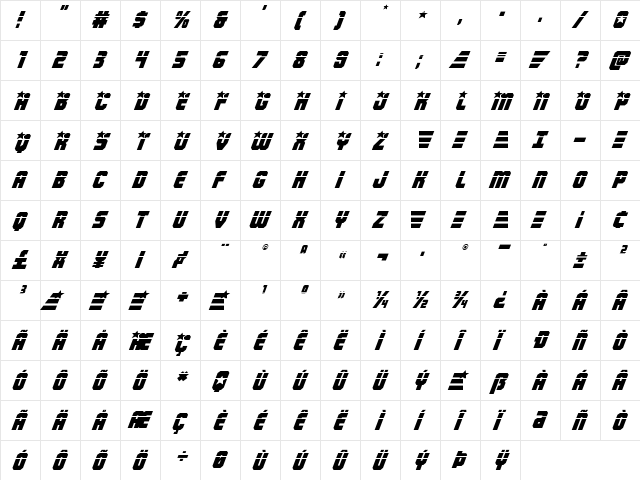
Army Rangers Laser Italic Italic
Design Context for Army Rangers Laser Italic Typeface
Army Rangers Laser Italic draws on military and industrial lettering traditions, with forms that communicate strength and precision. The dynamic lean of this cut emphasises speed and emphasis in any layout.
A strong choice for security brands, outdoor gear, and high-stakes visual communication.
Pro Tip: Try Army Rangers Laser Italic in all-caps for the most authentic military signage feel. It pairs well with stark, minimal layouts and muted colour palettes.